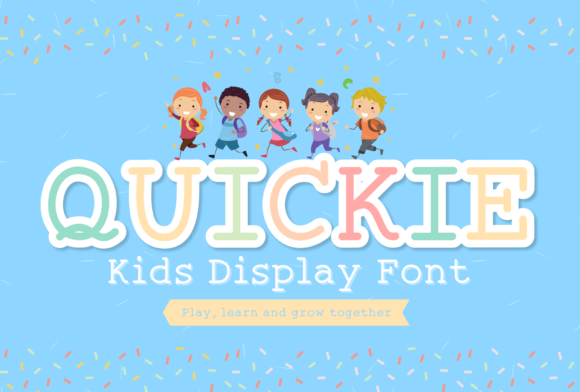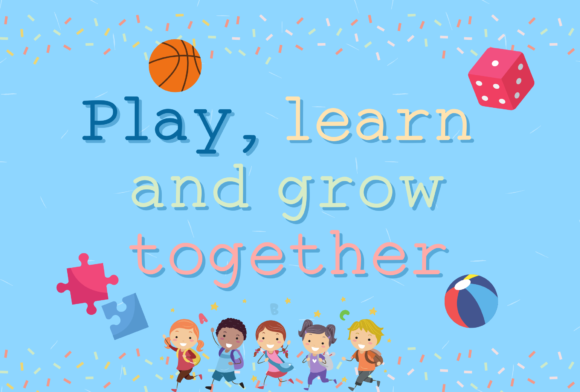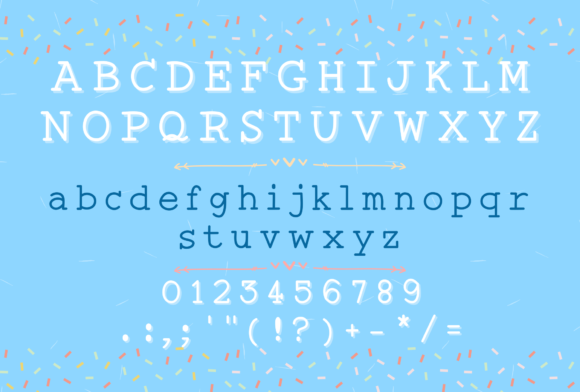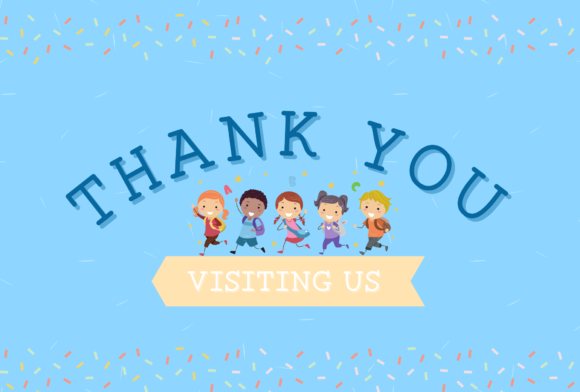
Quickie
Quickie: A Cool and Vintage-Styled Slab Serif Font
Quickie is a distinctive slab serif font that combines coolness with a fun, vintage aesthetic. This typeface offers designers a versatile tool for creating impactful typography across various design projects, particularly those related to crafting and digital design.
Key Features of Quickie
• Cool Design: Features a trendy and appealing appearance
• Fun Aesthetic: Incorporates playful elements for an engaging look
• Vintage Style: Offers a nostalgic feel reminiscent of classic typography
• Slab Serif Structure: Maintains the characteristic thick, rectangular serifs typical of slab serif fonts
• Versatile Application: Suitable for a variety of design contexts
Ideal Uses for Quickie
Quickie’s unique characteristics make it particularly well-suited for:
• Crafting projects and DIY designs
• Digital design work
• Presentations and slideshows
• Greeting card designs
• Vintage-inspired branding and logo creation
When incorporating Quickie into your designs, consider the following tips:
• Use for headlines or short blocks of text to maximize its cool and vintage impact
• Experiment with different sizes to highlight the font’s fun details
• Pair with simpler sans-serif fonts for body text to create contrast
• Consider using it in projects where you want to convey a sense of nostalgia or playfulness
Quickie is an excellent choice for designers looking to add a cool, fun, and vintage-styled slab serif to their typographic toolkit. Its versatility makes it stand out in the world of typography. Whether you’re working on logo designs, creating layouts for digital presentations, or developing greeting cards, Quickie offers the perfect blend of coolness and vintage charm.
Explore how Quickie can bring a cool and vintage edge to your design projects. From crafting endeavors to digital designs, this font provides the tools to create impactful and memorable typography that stands out with its unique blend of fun and nostalgia.